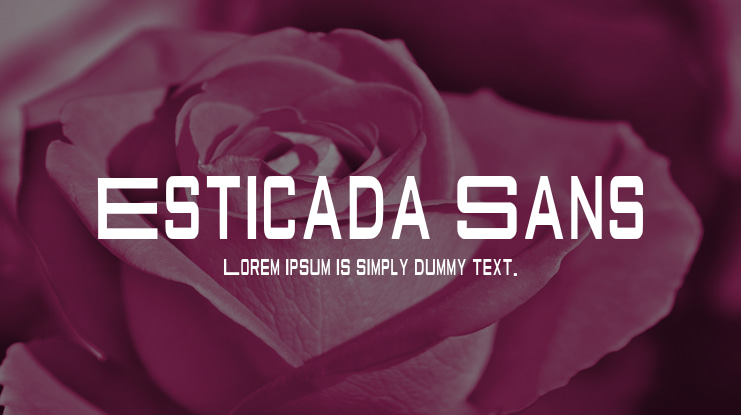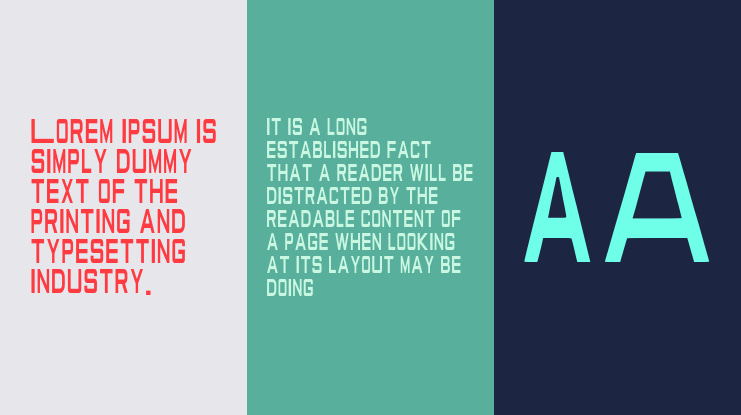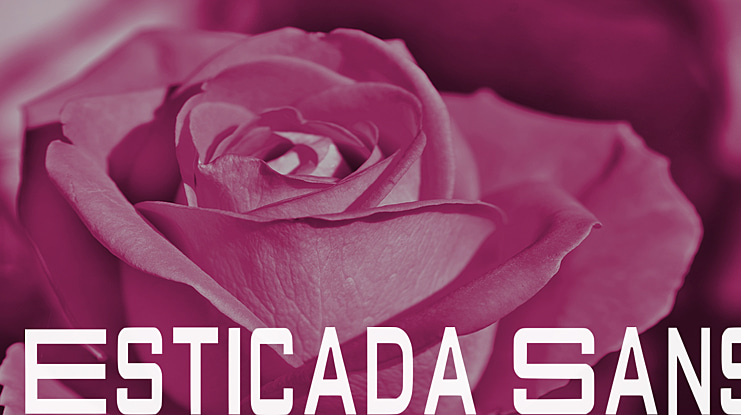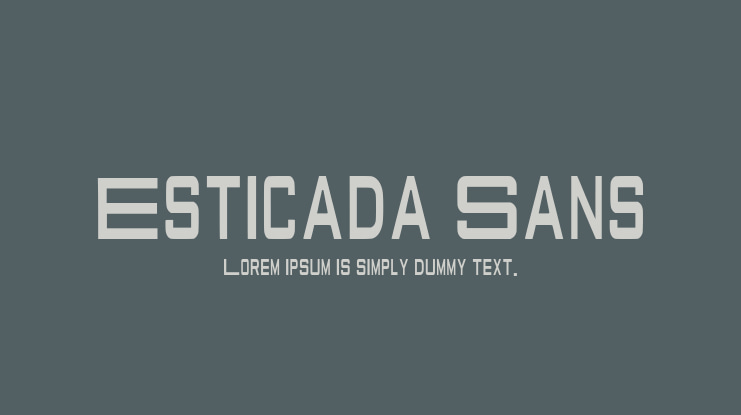
This is a carefully crafted, handmade sans serif font. Made from font designer named Edson Silva. The glyphs are nice and bold, with sharp corners. Use Basketto for your product packaging, out of home adverting, food truck posters, festivals or the travel industry.